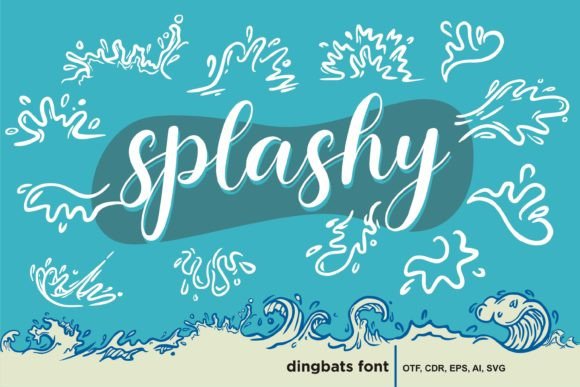
Introducing Splashy Font, a captivating and versatile dingbats font that will elevate your creative projects to new heights. Created by the talented onoborgol, this font is a must-have addition to your font library.
Splashy Font is not your ordinary dingbats font. It goes beyond just being cool and trendy; it brings a touch of magic and uniqueness to your designs. With its intricate and eye-catching symbols, it adds a splash of creativity to any project, making it stand out from the crowd.
Whether you are designing a logo, creating social media graphics, or working on a personal project, Splashy Font has got you covered. Its extensive collection of symbols and icons allows you to express your ideas in a visually stunning way. From playful emojis to elegant ornaments, this font offers a wide range of options to suit any style or theme.
Let your imagination run wild with Splashy Font. Its expressive and diverse characters enable you to convey emotions and messages effortlessly. Whether you want to inspire, entertain, or simply make a statement, this font provides endless possibilities to captivate your audience.
But Splashy Font is not just about aesthetics; it also offers practicality and ease of use. With its user-friendly interface, you can easily navigate through the extensive collection of symbols and find the perfect one for your project. Save time and effort with this convenient font that ensures a seamless designing experience.
Not only does Splashy Font enhance your creative endeavors, but it also adds a touch of professionalism to your work. Impress your clients, colleagues, and friends with the polished and refined look that this font brings to every design. Stand out as a true professional in your field with the help of Splashy Font.
With Splashy Font, you are not just purchasing a font; you are investing in a tool that will unlock endless possibilities for your designs. It empowers you to create visually stunning and emotionally engaging graphics that leave a lasting impression. From branding to personal projects, this font is a game-changer in the world of design.